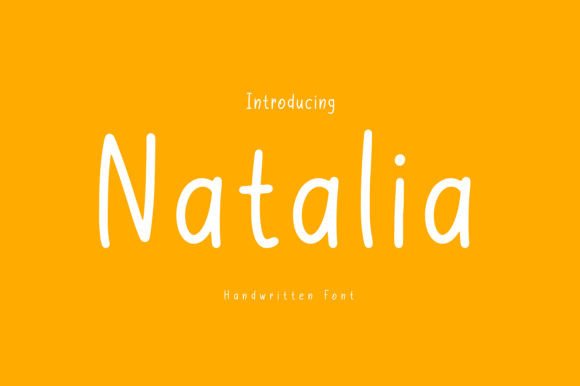
In a world where creativity and uniqueness reign, introduce Natalia Font, a remarkable handwritten script font that embodies playfulness and authenticity. Crafted with meticulous care by Brown Cupple Fonts, Natalia is the perfect companion for your creative endeavors, whether you're a seasoned designer or just starting out.
With its charming and versatile nature, Natalia Font effortlessly adapts to a plethora of design projects, adding a touch of whimsy and warmth to your creations. Unleash your inner artist and explore the boundless possibilities that await with this captivating font.
From sleek fitness logos that exude energy and dynamism to captivating blog posts that resonate with your audience, Natalia Font is your secret weapon to leave a lasting impression. Its innate playfulness adds a touch of delight to any project, while its authenticity shines through, creating designs that feel genuine and heartfelt.
Perfect for a multitude of applications, Natalia Font's charm knows no bounds. Create stunning logos that demand attention, branding materials that exude professionalism, advertisements that captivate the senses, and invitations that spark joy in the hearts of your guests.
With Natalia Font, the possibilities are endless. Embark on a creative journey and let your imagination run wild as you design greeting cards that warm the hearts of your loved ones, planners that keep you organized in style, and photo albums that immortalize your precious memories.